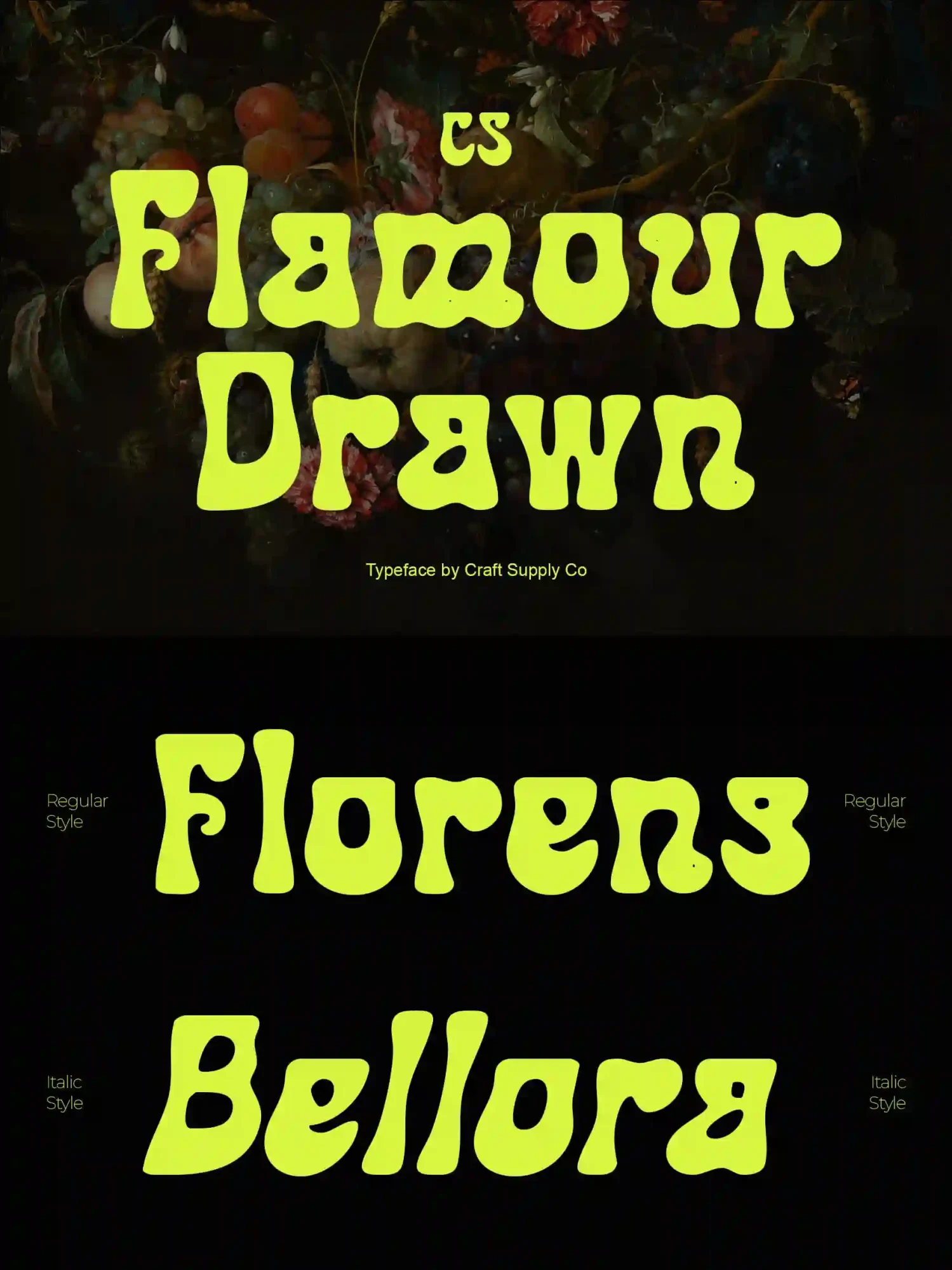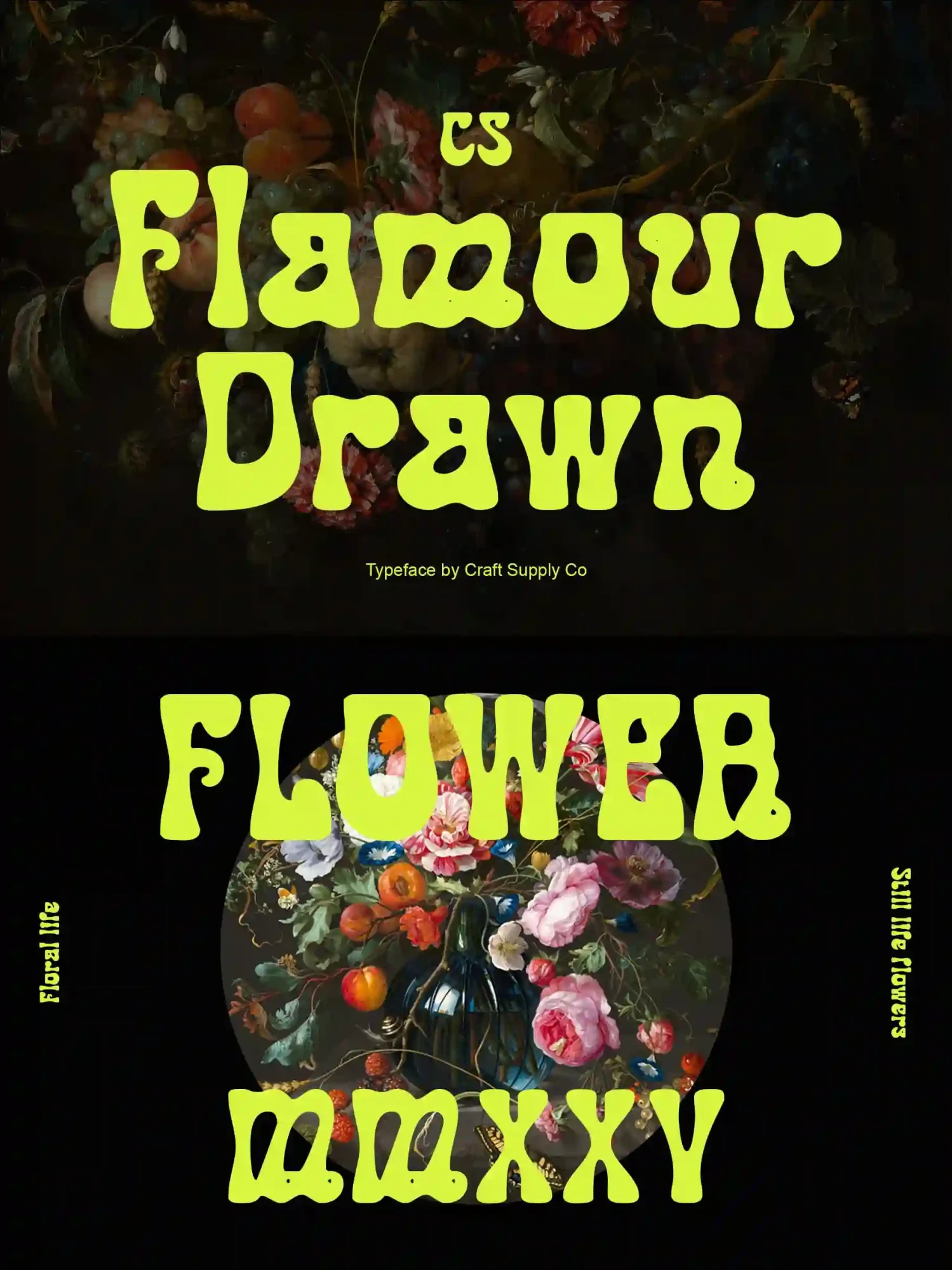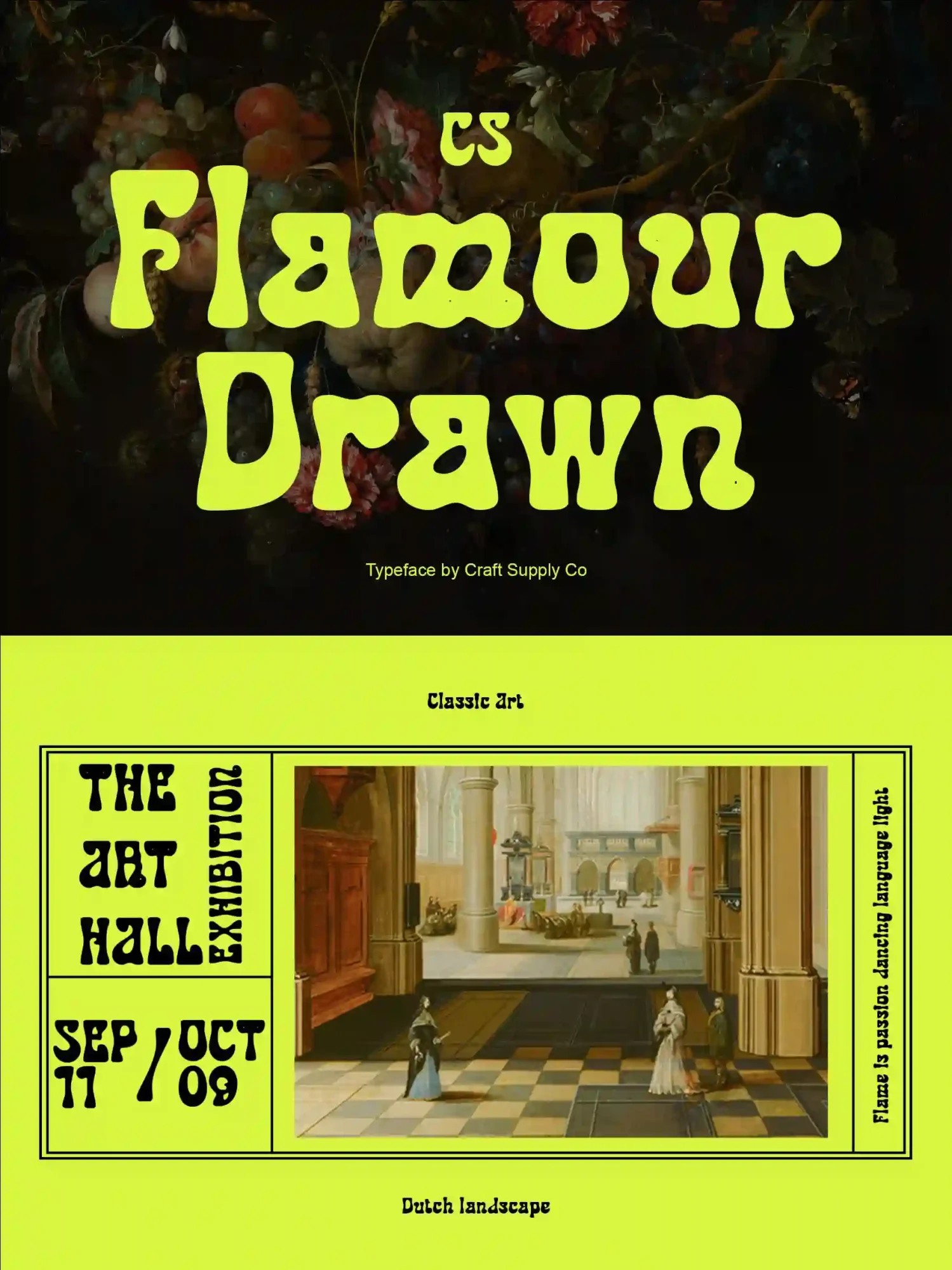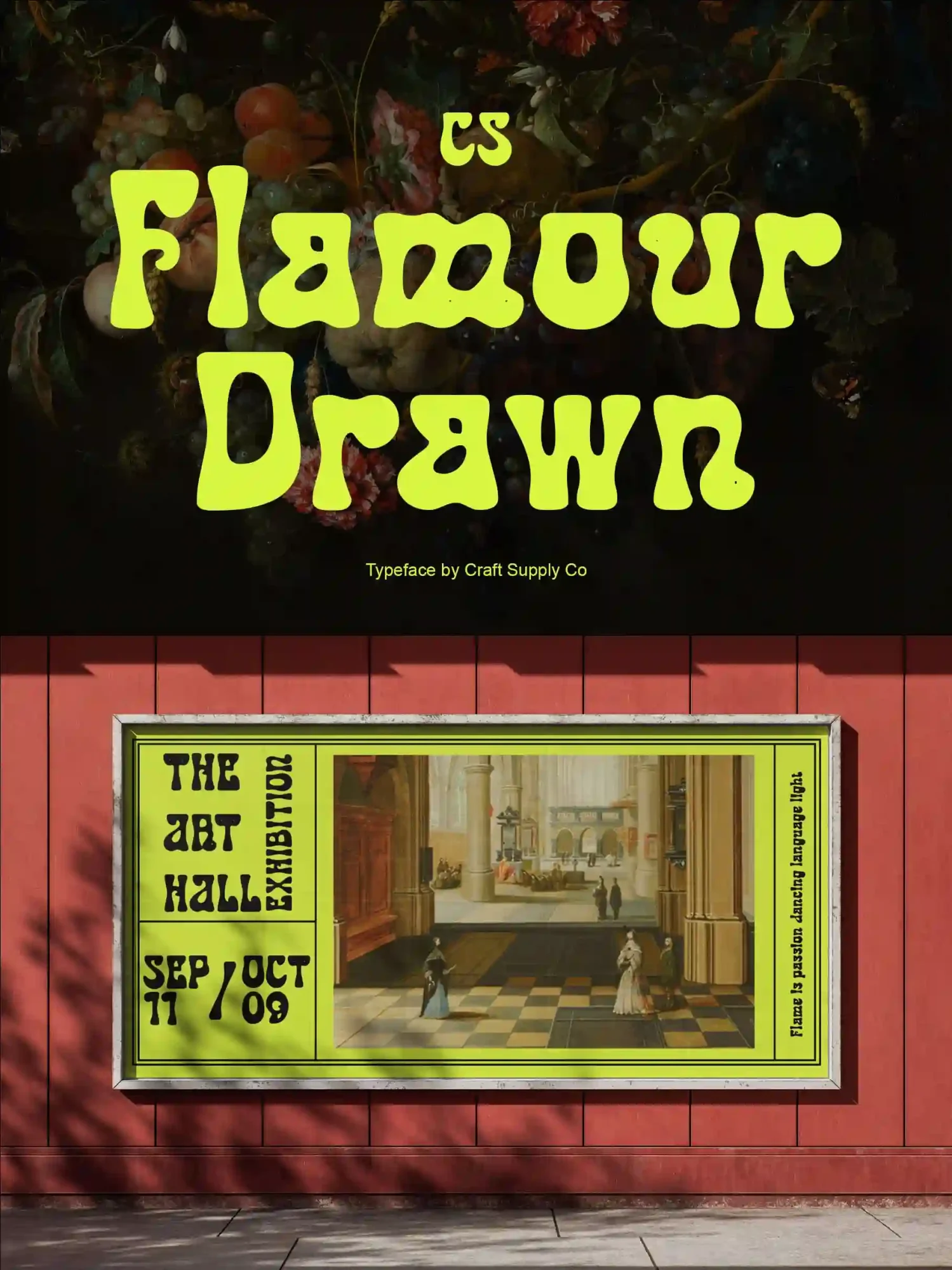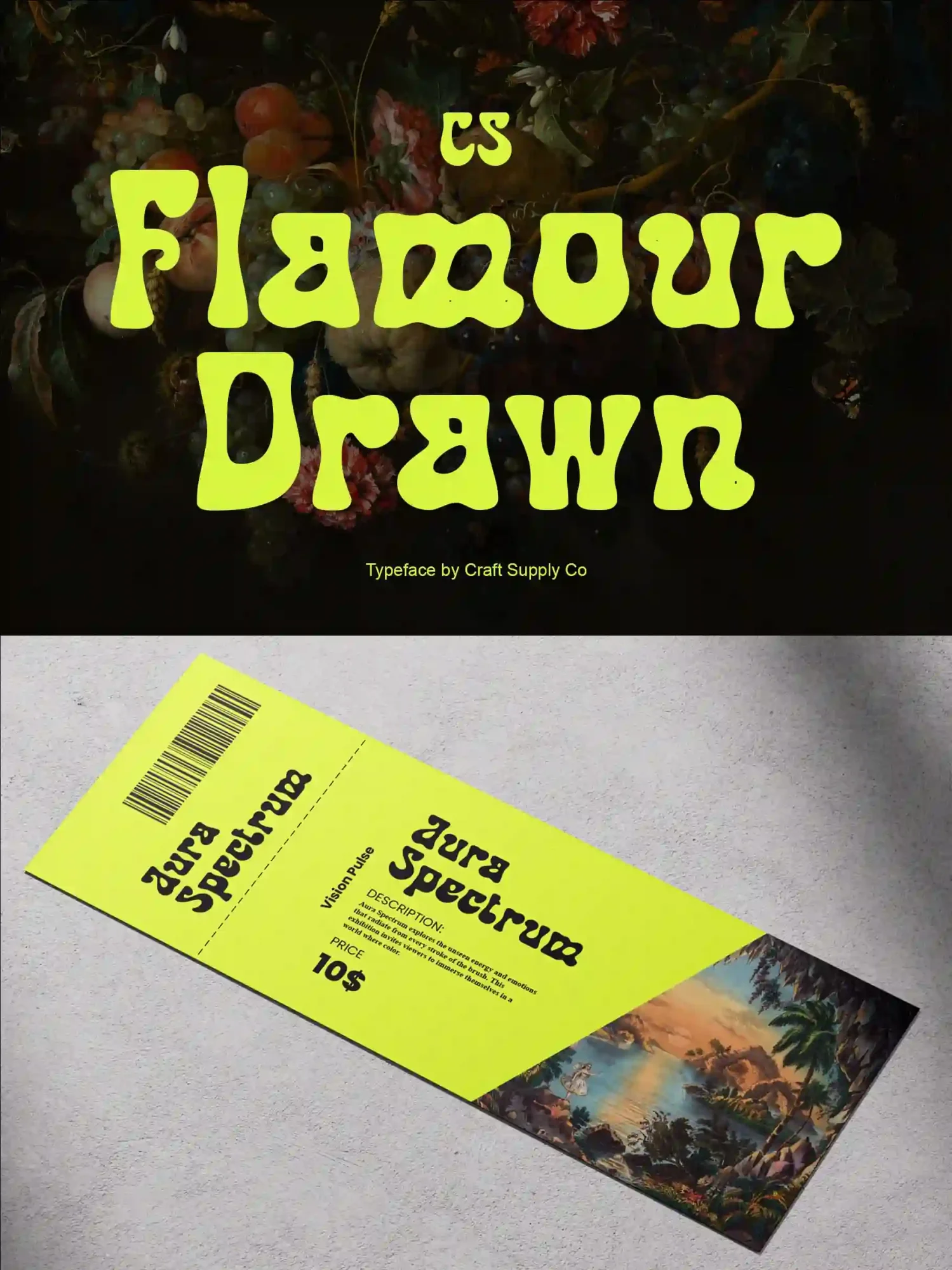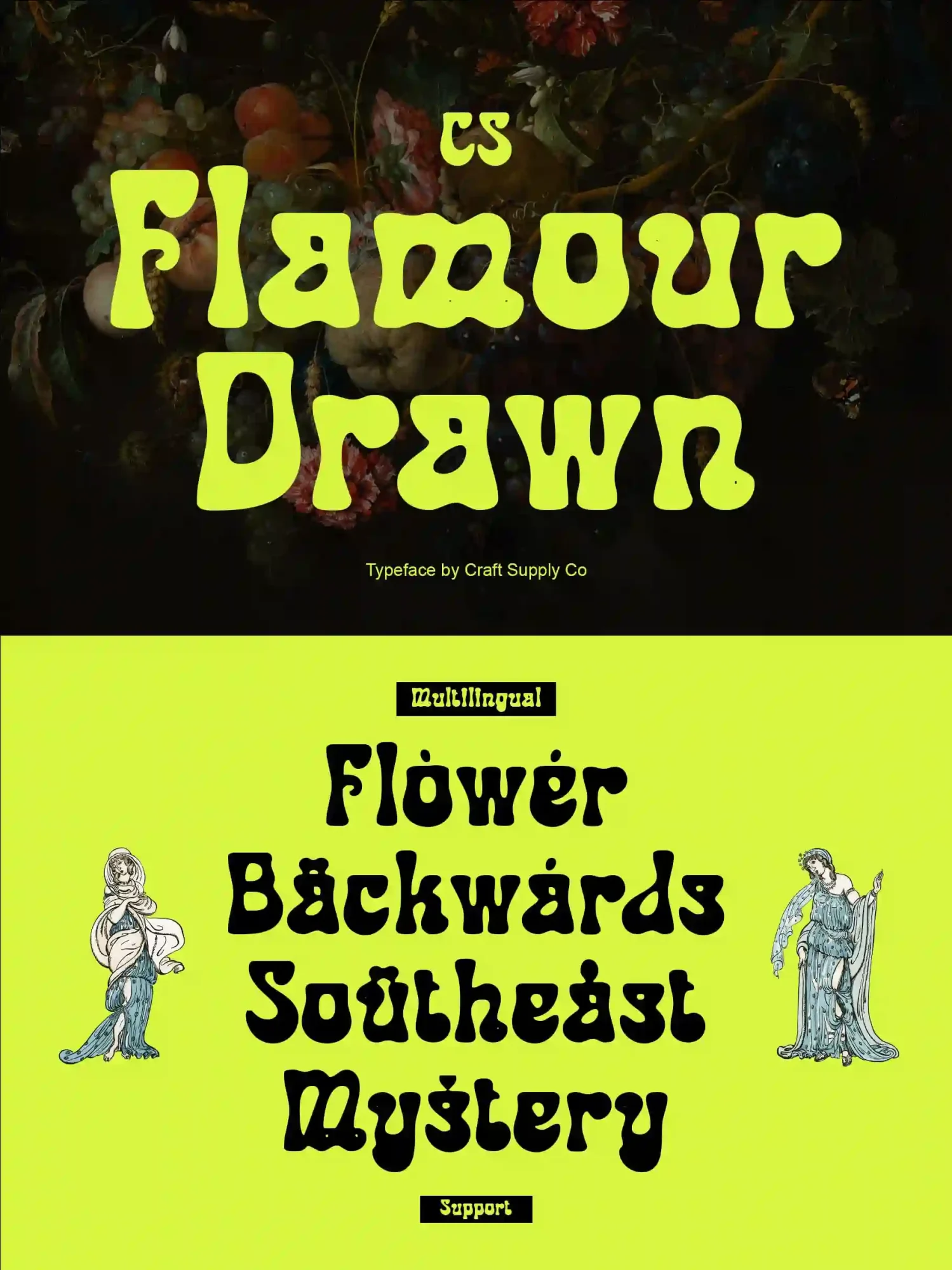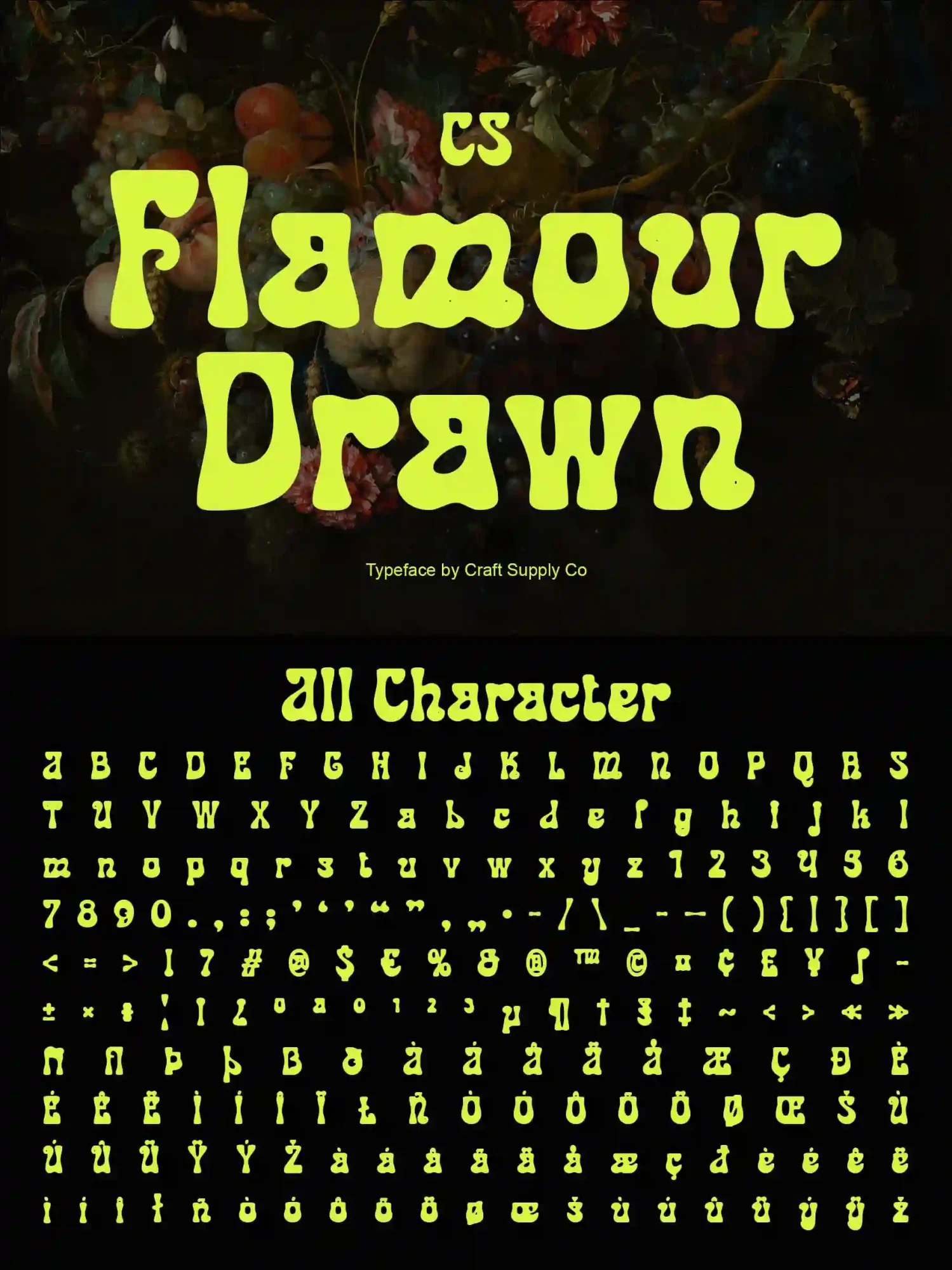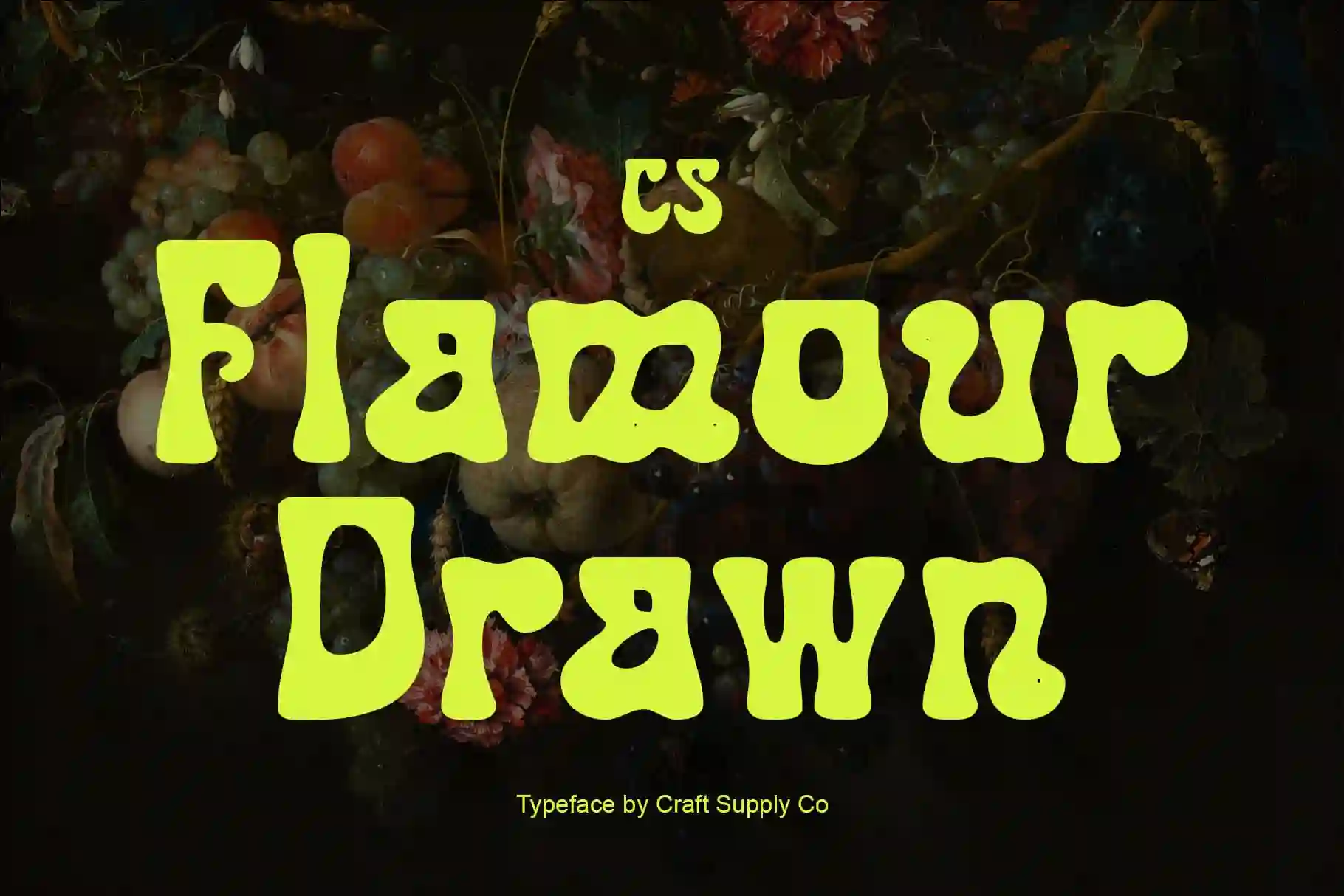
CS Flamour Drawn – Psychedelic Vintage Display Font: Hand-Drawn Font with Stamp Like Texture
Distinctive Drawn Style
CS Flamour Drawn embraces a whimsical, hand-drawn aesthetic that immediately stands out. Its bold strokes and textured details give it the appearance of being stamped or hand-crafted, adding depth and authenticity to any design.
Psychedelic and Historical Feel
Blending psychedelic energy with historical undertones, CS Flamour Drawn delivers a unique visual voice. Its strong texture and irregular shapes create a raw, artistic impression, perfect for designs that aim to capture both retro flair and cultural richness.